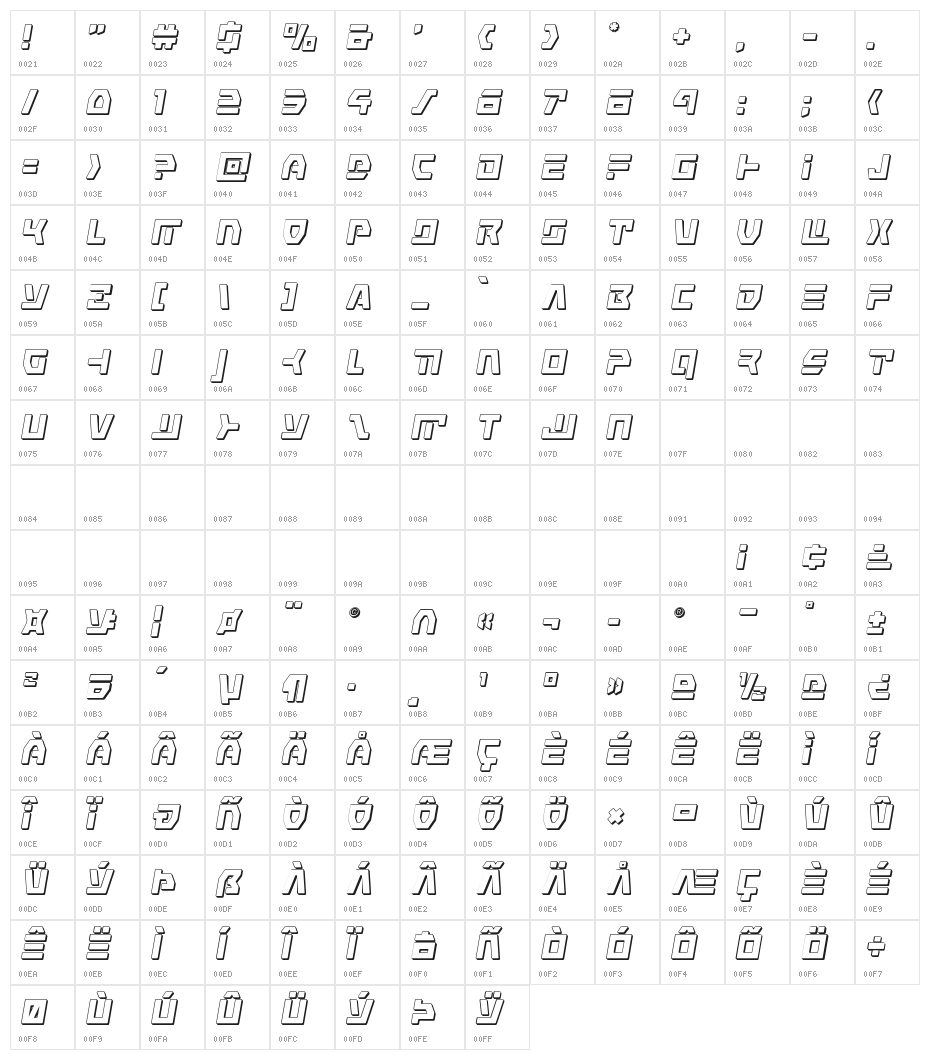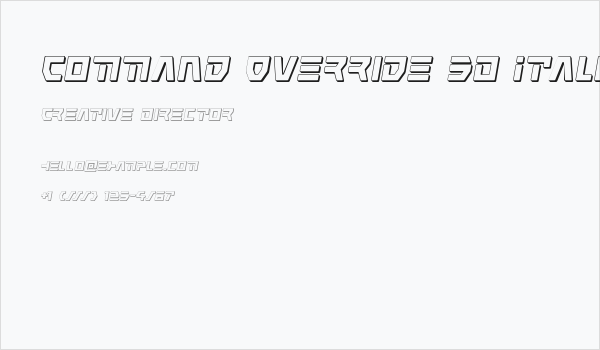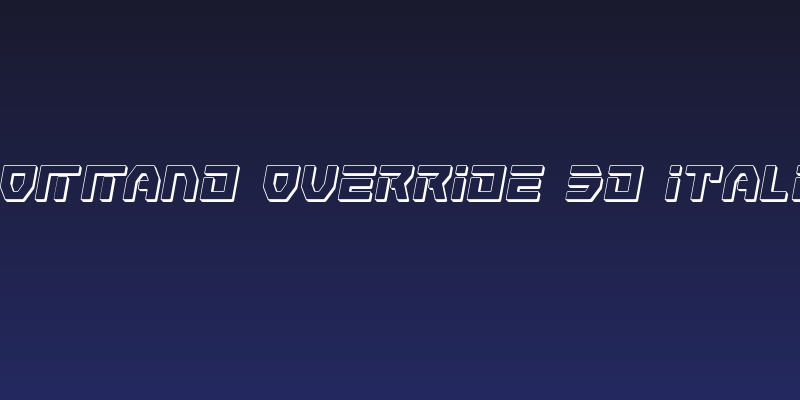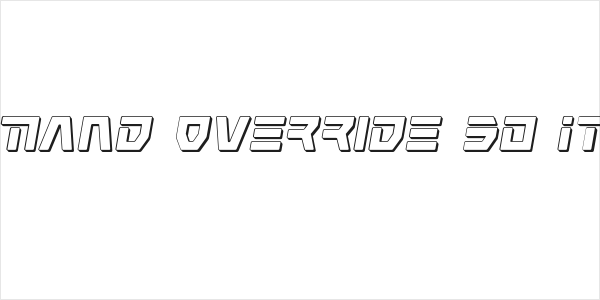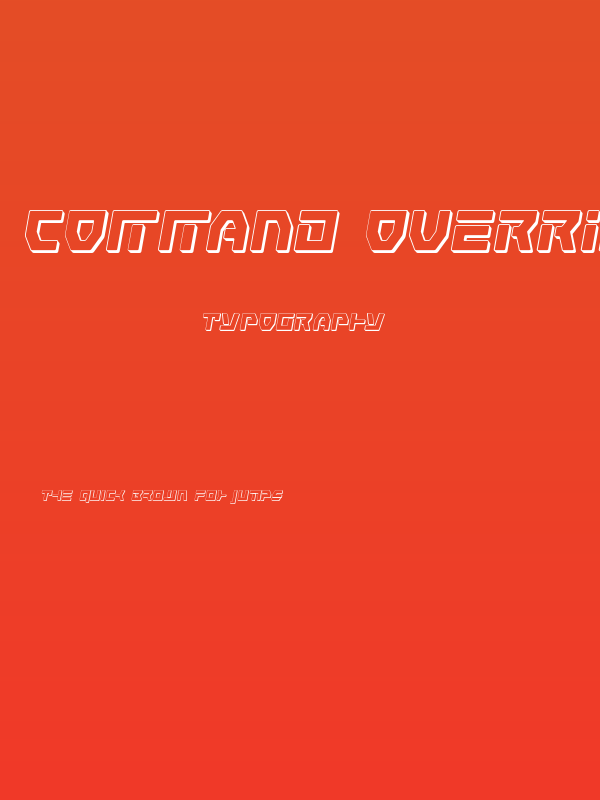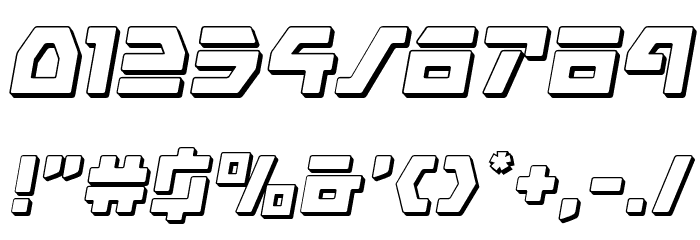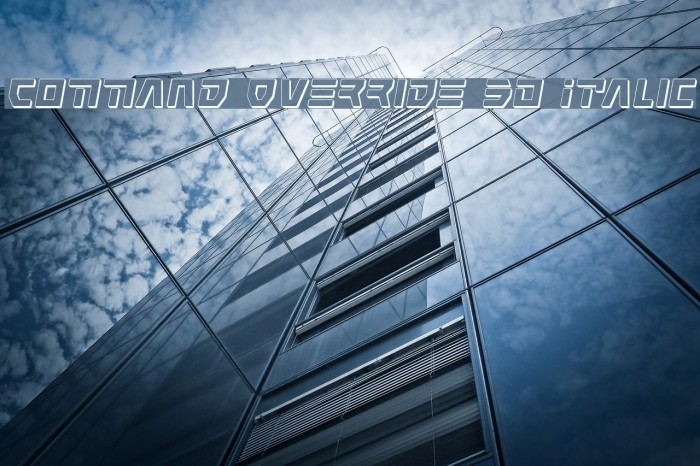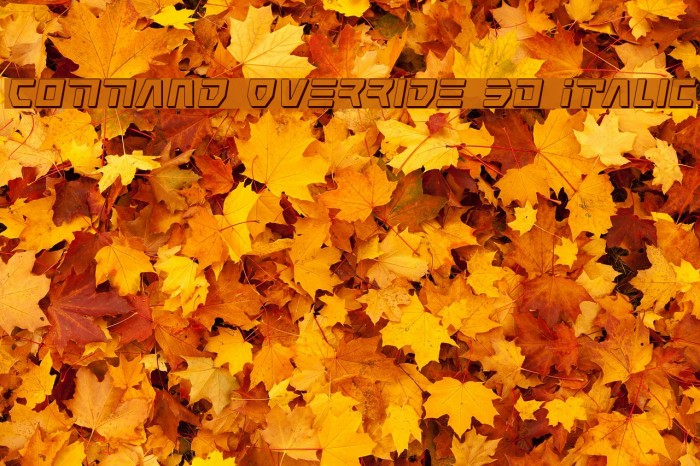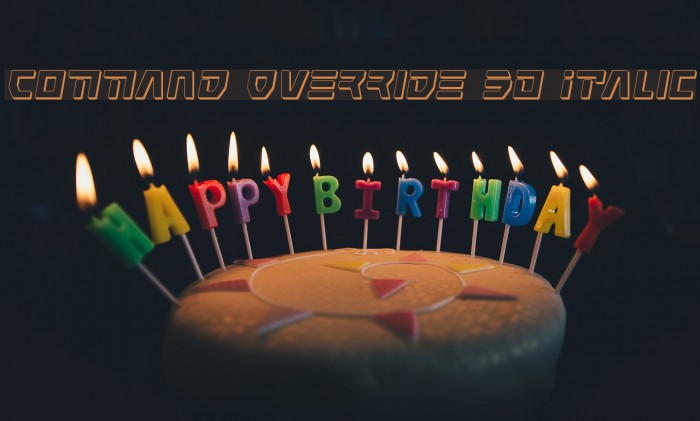
Command Override 3D Italic Font
Command Override 3D Italic Description
This font features a bold, futuristic design with a distinct 3D effect. The characters are outlined, giving them a hollow appearance that enhances their dimensionality. Each letter has a geometric structure with sharp angles and clean lines, creating a sense of movement and speed. The italic slant adds to the dynamic feel, making it ideal for projects that require a modern and edgy look. The font maintains consistent stroke thickness, ensuring readability while emphasizing its unique style. Its bold presence makes it suitable for attention-grabbing headlines and logos.